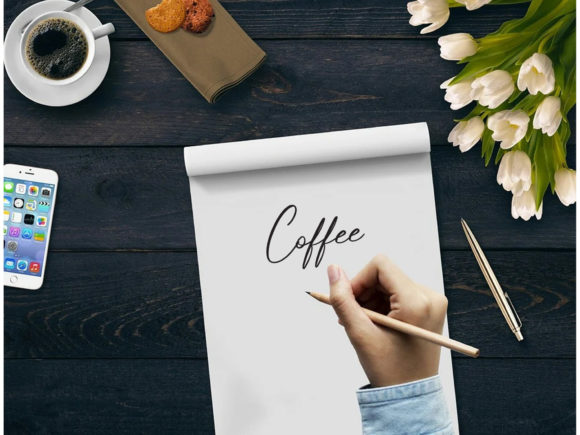
Dandy Sinta Font: Elevate Your Designs with a Delicate Handwritten Style
In the world of typography, fonts play a crucial role in conveying messages, expressing emotions, and creating visually appealing designs. One such font that has gained significant attention in recent times is the Dandy Sinta font. This delicate handwritten font is carefully crafted to produce cool and unique designs, making it an excellent choice for various applications, including writing letters, invitations, food products, and more.
What is Dandy Sinta Font?
Dandy Sinta is a beautiful, hand-crafted font that exudes elegance and sophistication. Its delicate strokes and unique letterforms make it an ideal choice for designers, artists, and writers looking to add a personal touch to their work. The font’s intricate details and flowing lines create a mesmerizing effect, making it perfect for a wide range of design projects.
Key Features of Dandy Sinta Font
- Delicate Handwritten Style: Dandy Sinta boasts a beautiful, handwritten style that adds a touch of elegance to any design.
- Unique Letterforms: The font features unique letterforms that set it apart from other fonts, making it perfect for creating distinctive designs.
- Cool and Sophisticated: Dandy Sinta’s cool and sophisticated look makes it an excellent choice for designs that require a touch of refinement.
- Multipurpose: The font can be used for a wide range of applications, including writing letters, invitations, food products, and more.
Uses of Dandy Sinta Font
Dandy Sinta’s versatility makes it an excellent choice for various design projects. Here are some of the ways you can use this beautiful font:
- Wedding Invitations: The font’s elegant and sophisticated look makes it perfect for wedding invitations, adding a touch of romance and whimsy to your designs.
- Food Blogging: Dandy Sinta’s unique letterforms and delicate strokes make it an excellent choice for food bloggers looking to add a personal touch to their recipes and menu designs.
- Letter Writing: The font’s handwritten style makes it perfect for writing letters, adding a touch of warmth and personality to your correspondence.
- Branding and Packaging: Dandy Sinta’s cool and sophisticated look makes it an excellent choice for branding and packaging designs, helping you to create a unique and memorable identity for your business.
Benefits of Using Dandy Sinta Font
Using Dandy Sinta font offers several benefits, including:
- Unique Designs: The font’s unique letterforms and delicate strokes help you create distinctive designs that stand out from the crowd.
- Elegance and Sophistication: Dandy Sinta’s elegant and sophisticated look adds a touch of refinement to your designs, making them perfect for high-end applications.
- Versatility: The font’s multipurpose nature makes it an excellent choice for a wide range of design projects, from wedding invitations to food blogging.
- Easy to Read: Despite its delicate nature, Dandy Sinta is easy to read, making it perfect for body text and other applications where legibility is crucial.
In conclusion, Dandy Sinta font is a beautiful, delicate handwritten font that is carefully crafted to produce cool and unique designs. Its versatility, elegance, and sophistication make it an excellent choice for a wide range of design projects, from wedding invitations to food blogging. With its easy-to-read nature and unique letterforms, Dandy Sinta is sure to elevate your designs and add a touch of refinement to your work.
- What is Dandy Sinta font?: Dandy Sinta is a delicate handwritten font that is carefully crafted to produce cool and unique designs.
- What can I use Dandy Sinta font for?: You can use Dandy Sinta font for a wide range of design projects, including writing letters, invitations, food products, and more.
- Is Dandy Sinta font easy to read?: Yes, despite its delicate nature, Dandy Sinta is easy to read, making it perfect for body text and other applications where legibility is crucial.